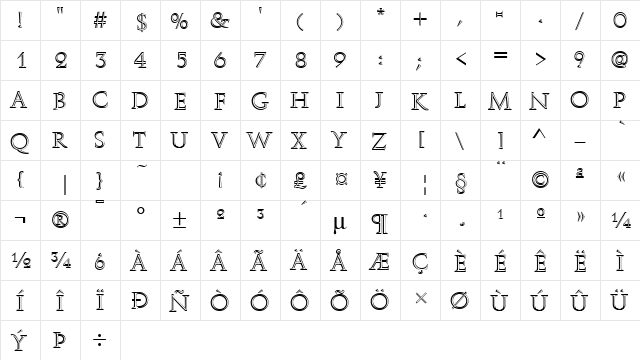
Augius Open Regular Font Preview
Augius Open Regular
Design Context for Augius Open Typeface
Augius Open takes a measured approach to typography — its balanced proportions and neutral character make it a reliable workhorse for both digital and print work.